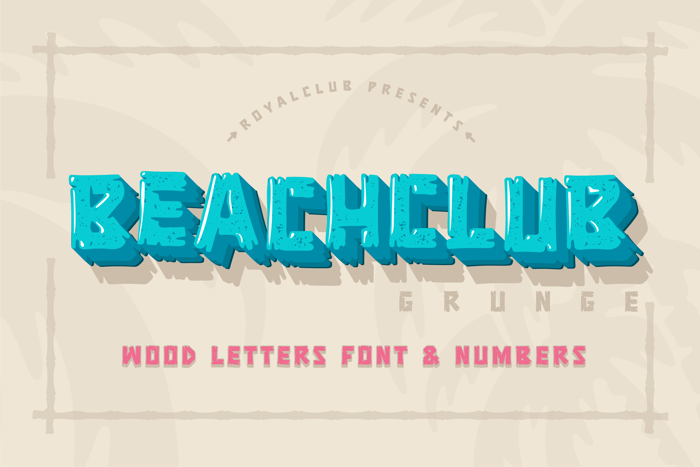
BEACHCLUB Grunge Font
Get some beach holiday vibe so needed during a crazy year in the city!
BEACHCLUB grunge is inspired by tropical islands hand-painted signs.
Bring the summer beach parties feeling with sunshine, music and strong cocktails. We crafted a digital version of woodcrafted letters as if it was made for a beach bar in Hawaii. Then the time, sea and sand did the rest.
Use our font to bring this fun and relaxed energy to your graphics!
BEACHCLUB grunge will be a great help and perfect fit for various posters, banners, typography and illustrations.